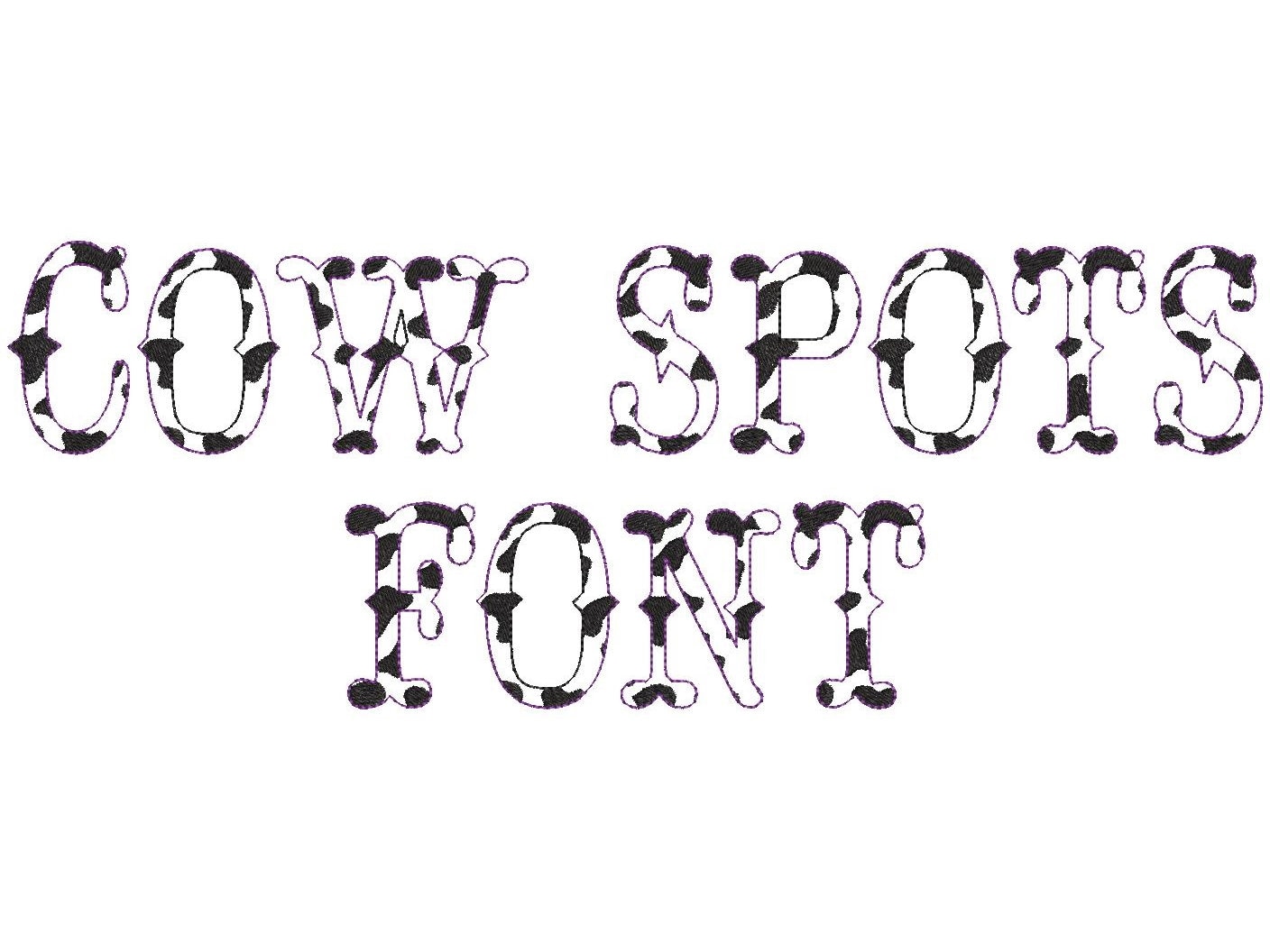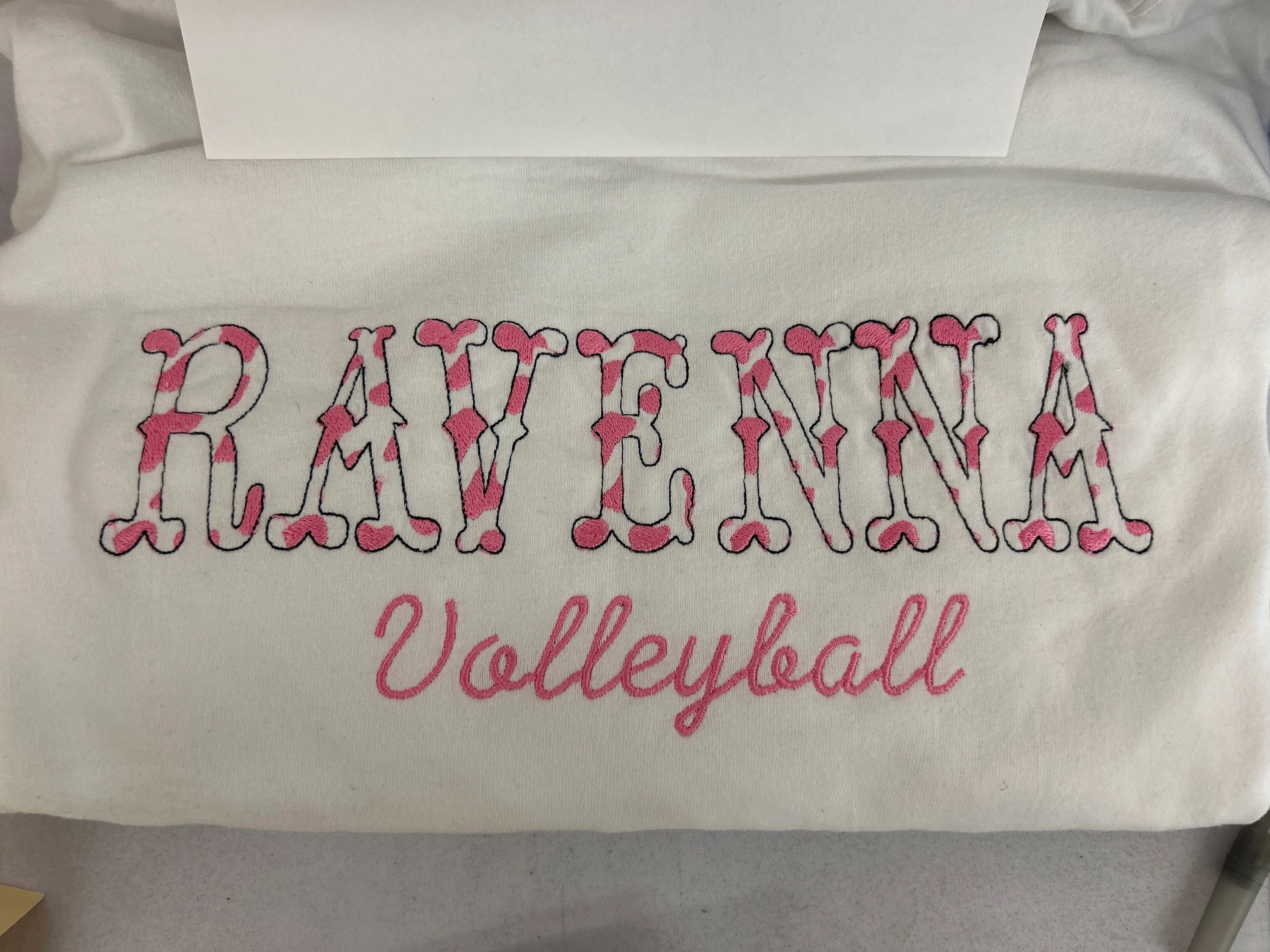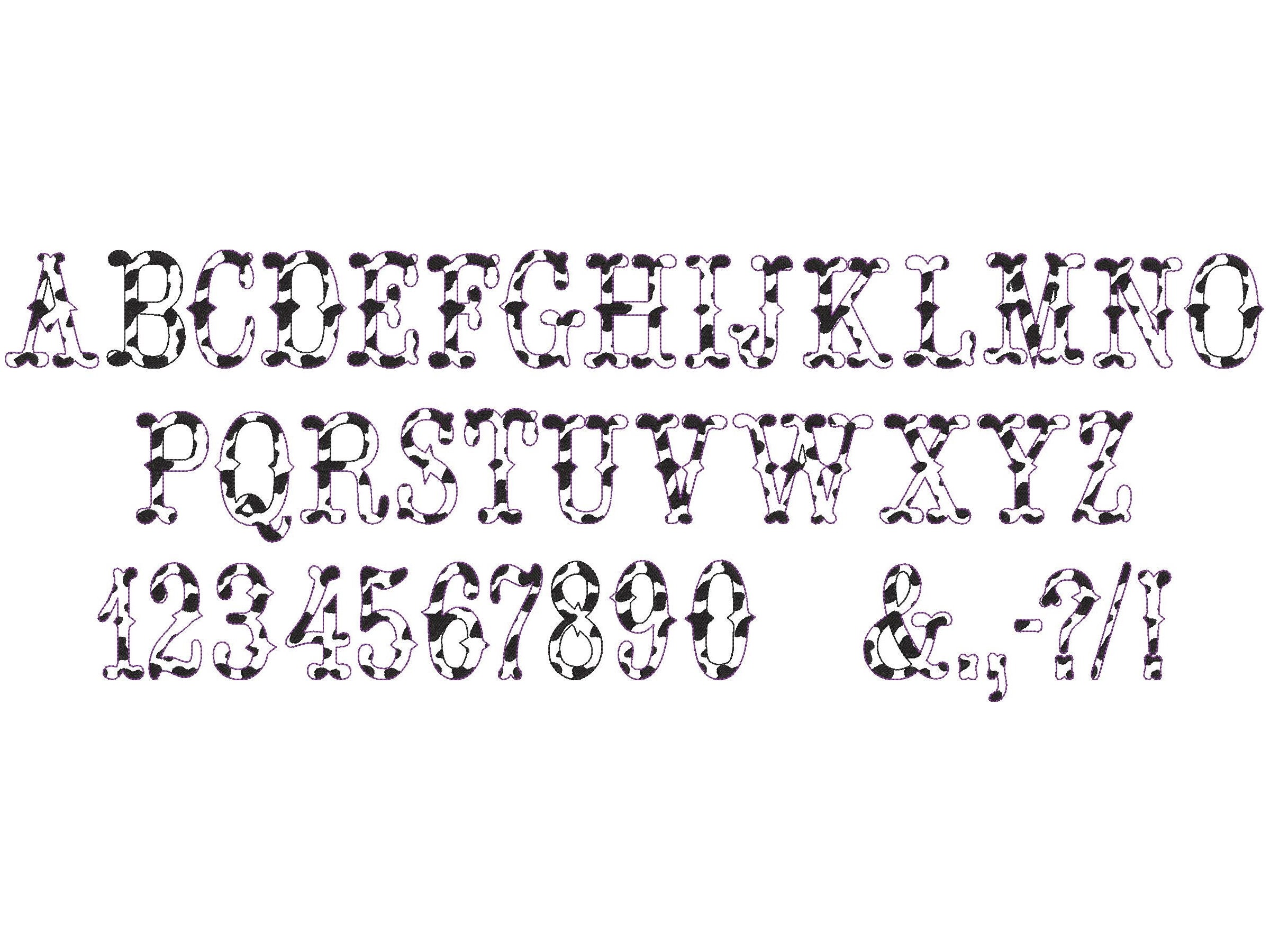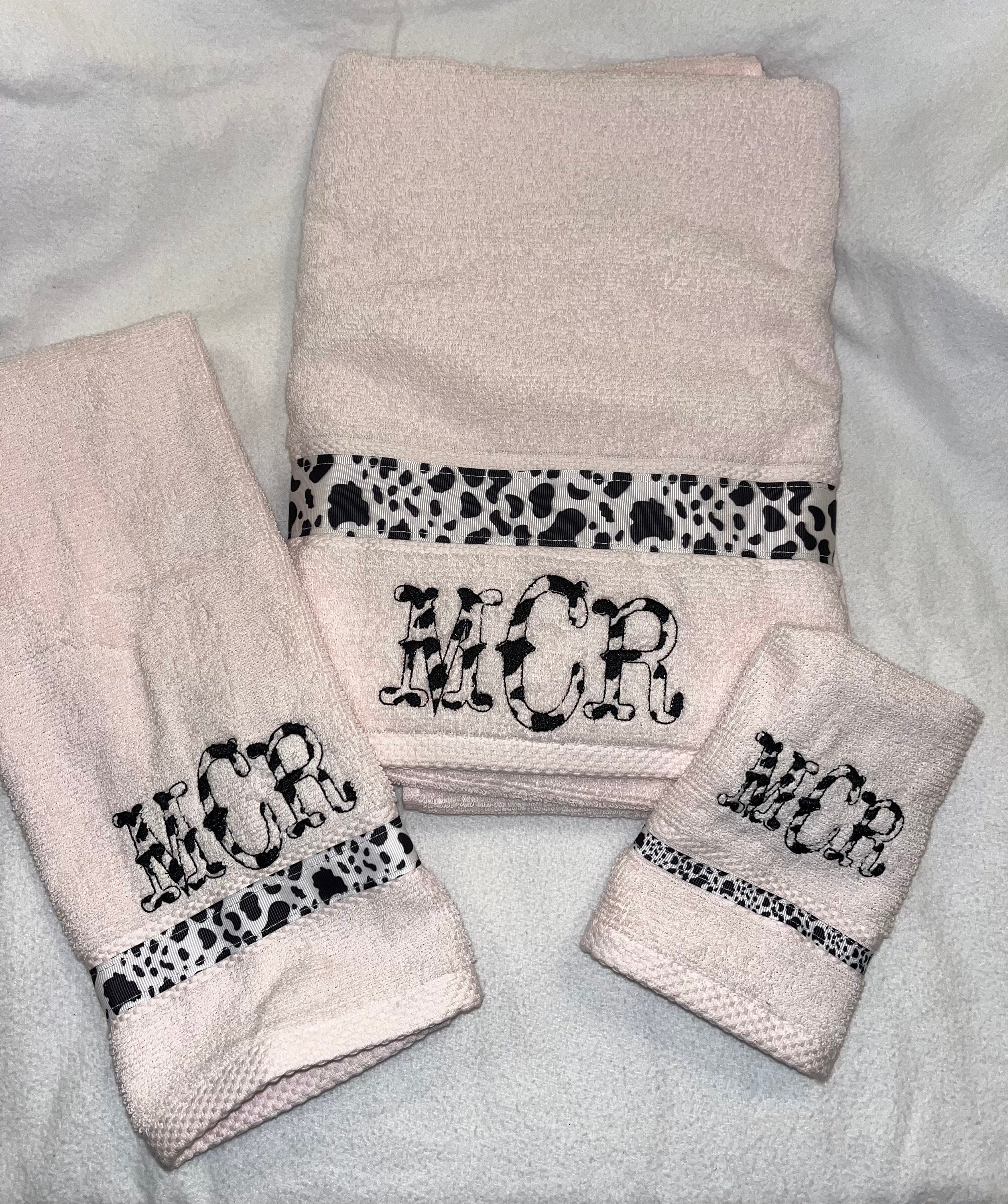
Cow spots patterned Font monogram alphabet letters machine embroidery designs western farm kids funny uppercase numbers punctuation BX included
Uppercase, numbers and punctuation.
These are quick stitch designs, look like lace, and the background fabric looks through. Stunning effect.
Cow spots are part of the embroidery.